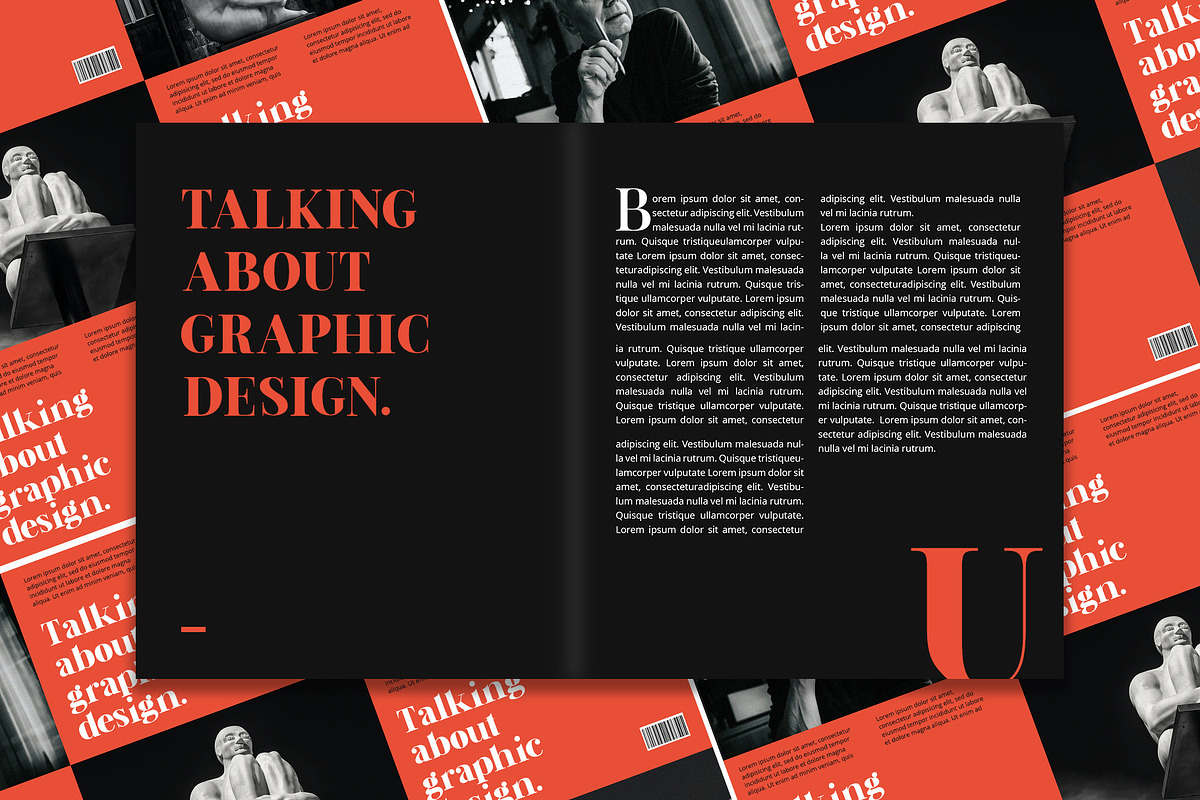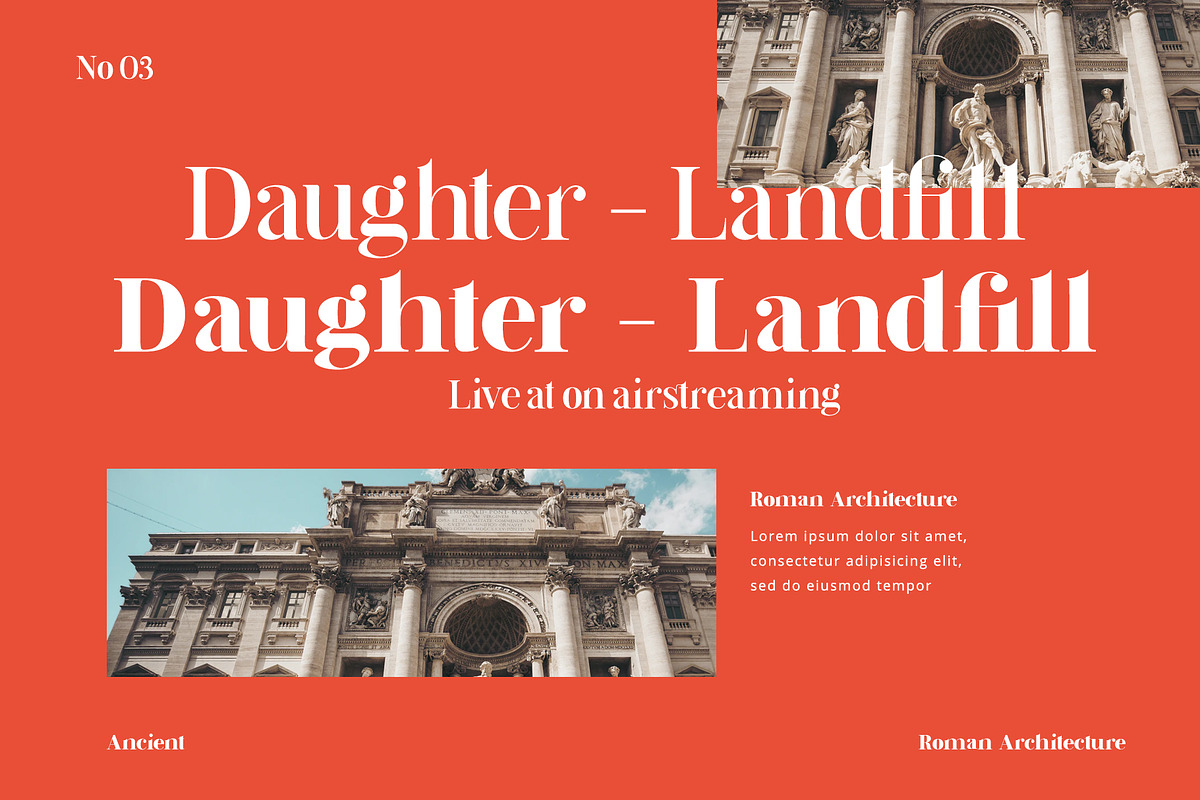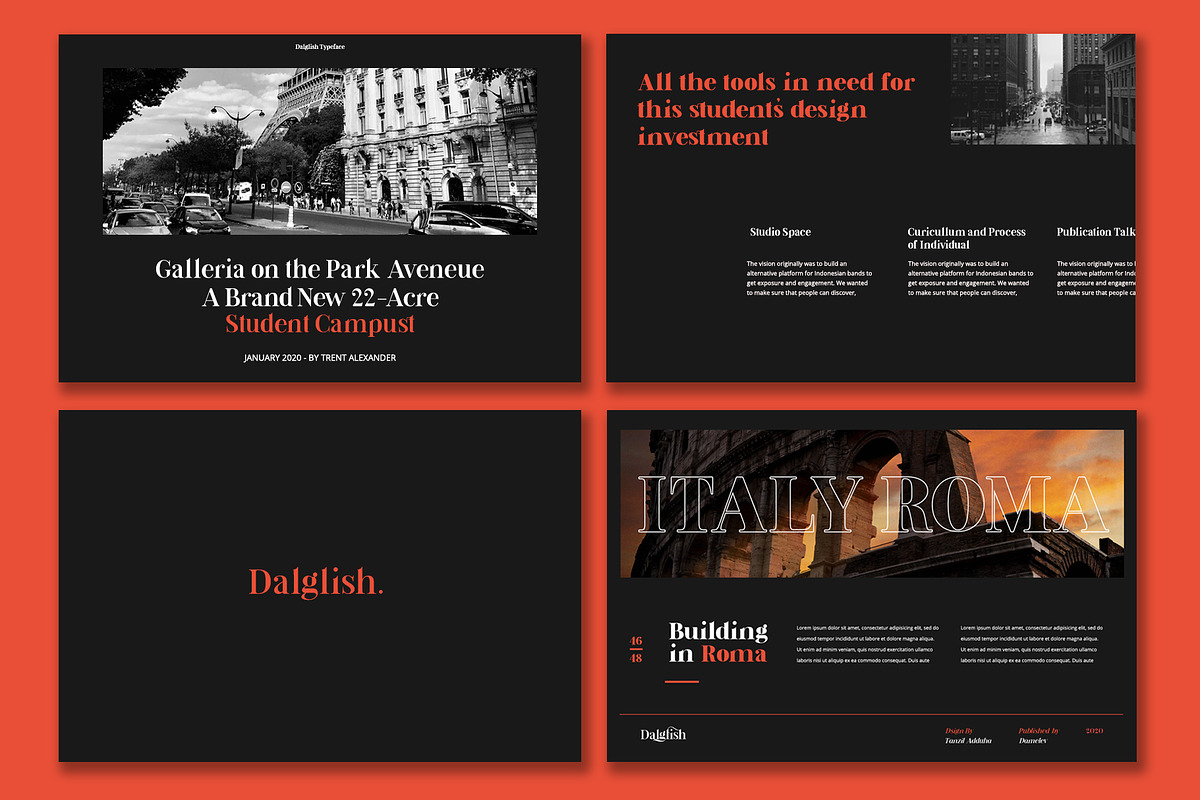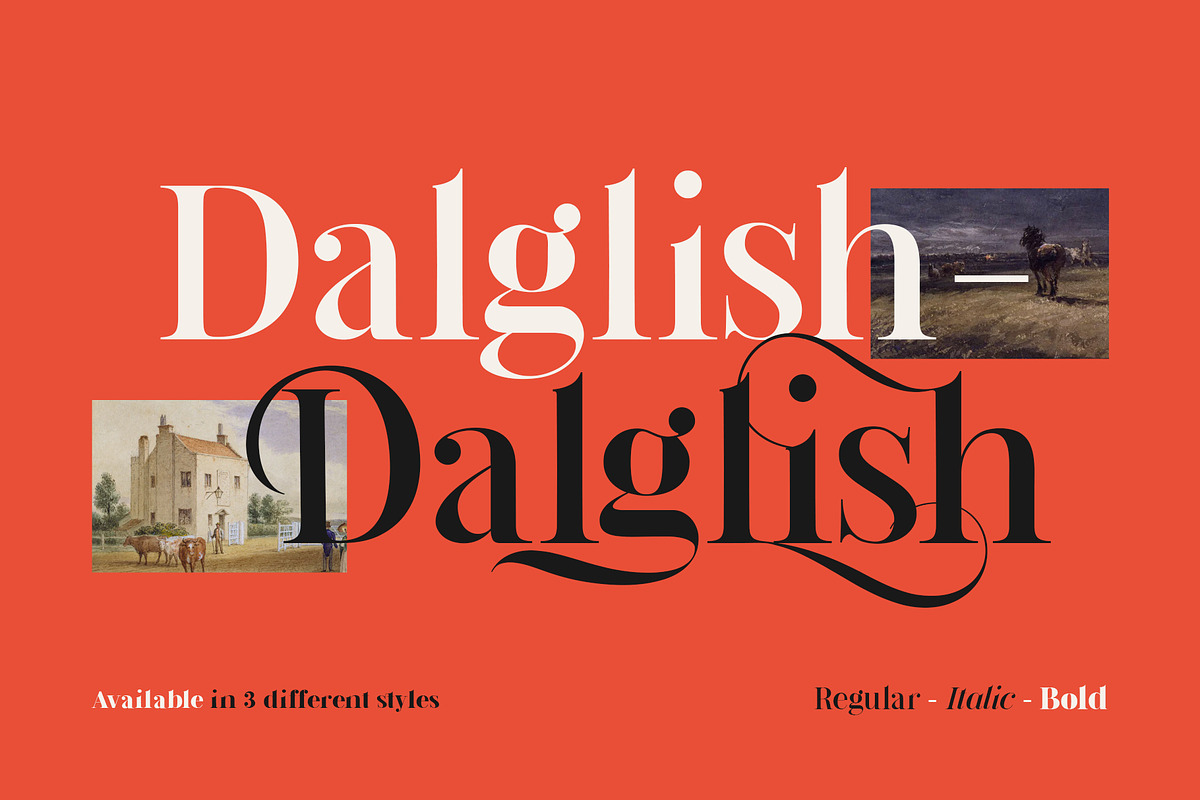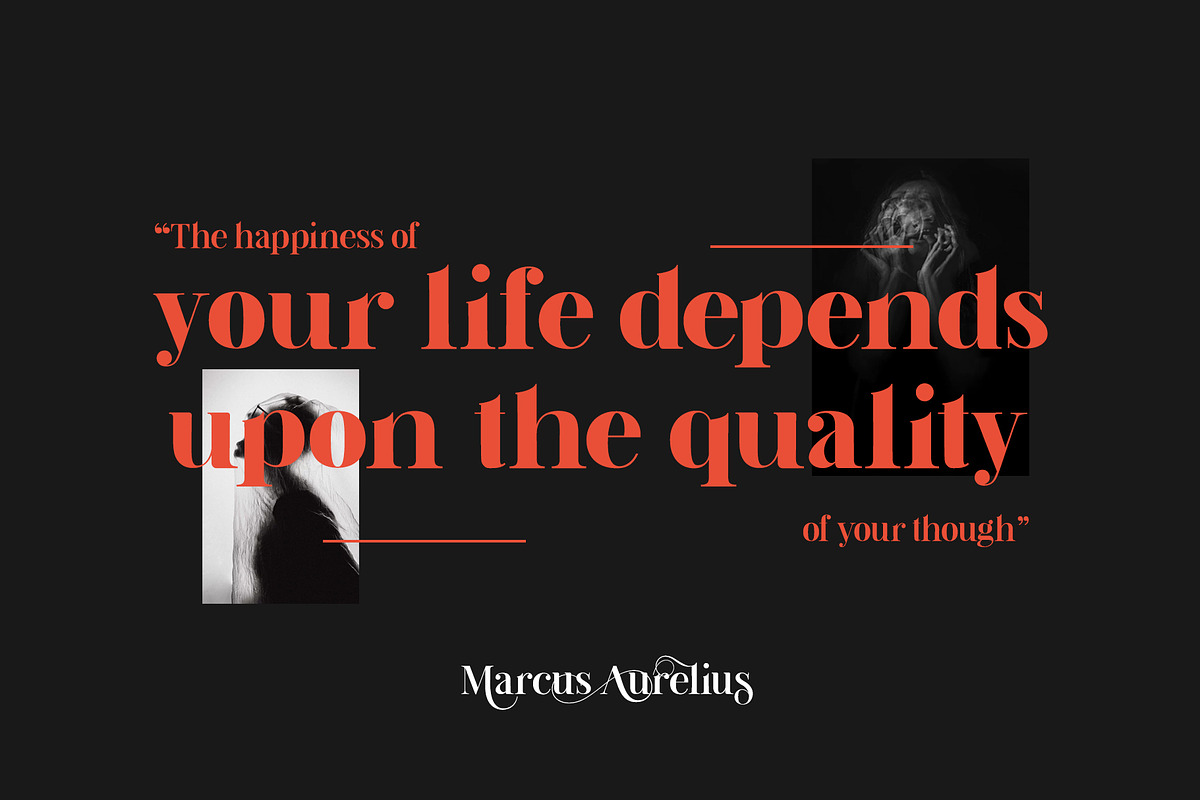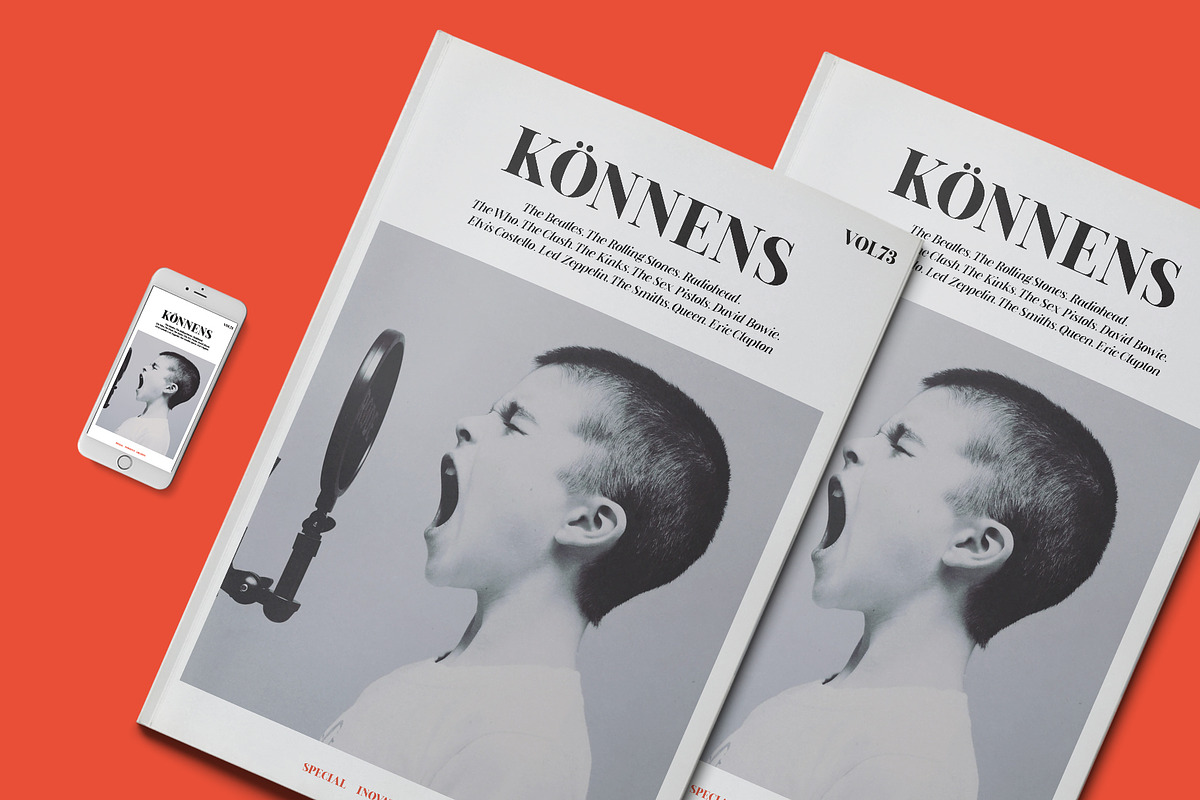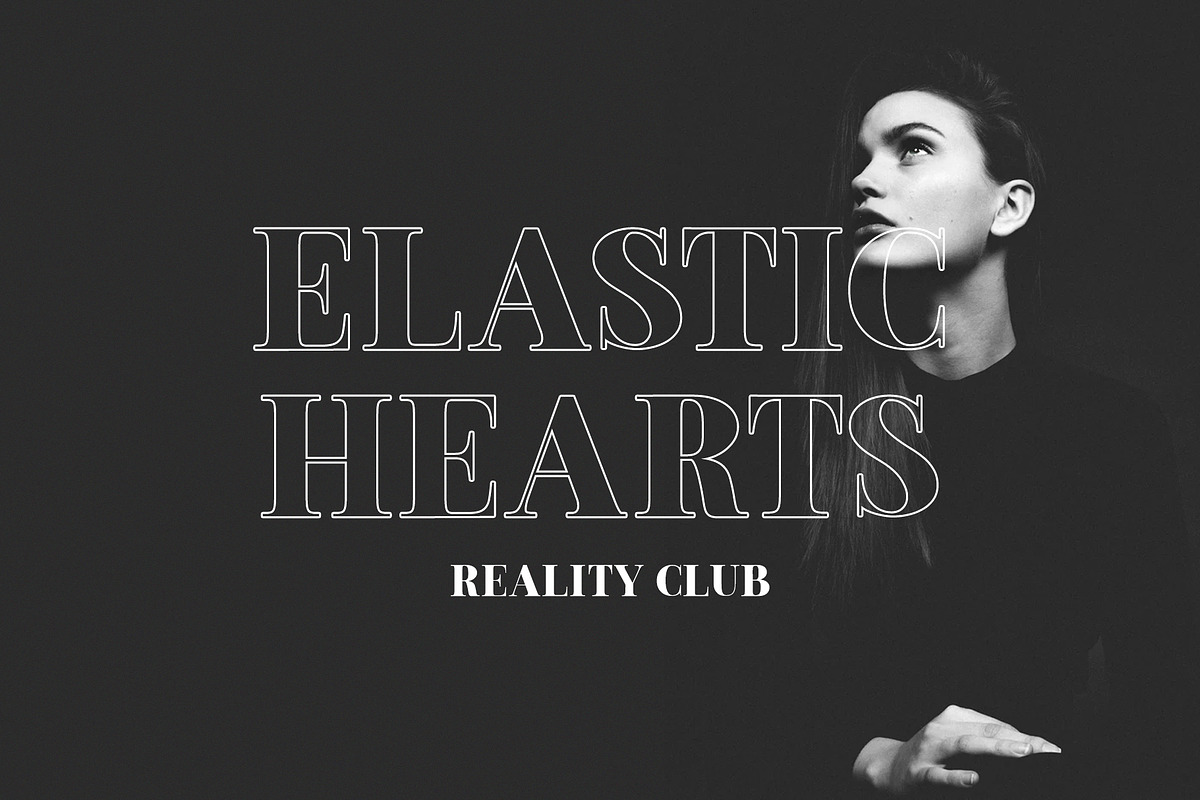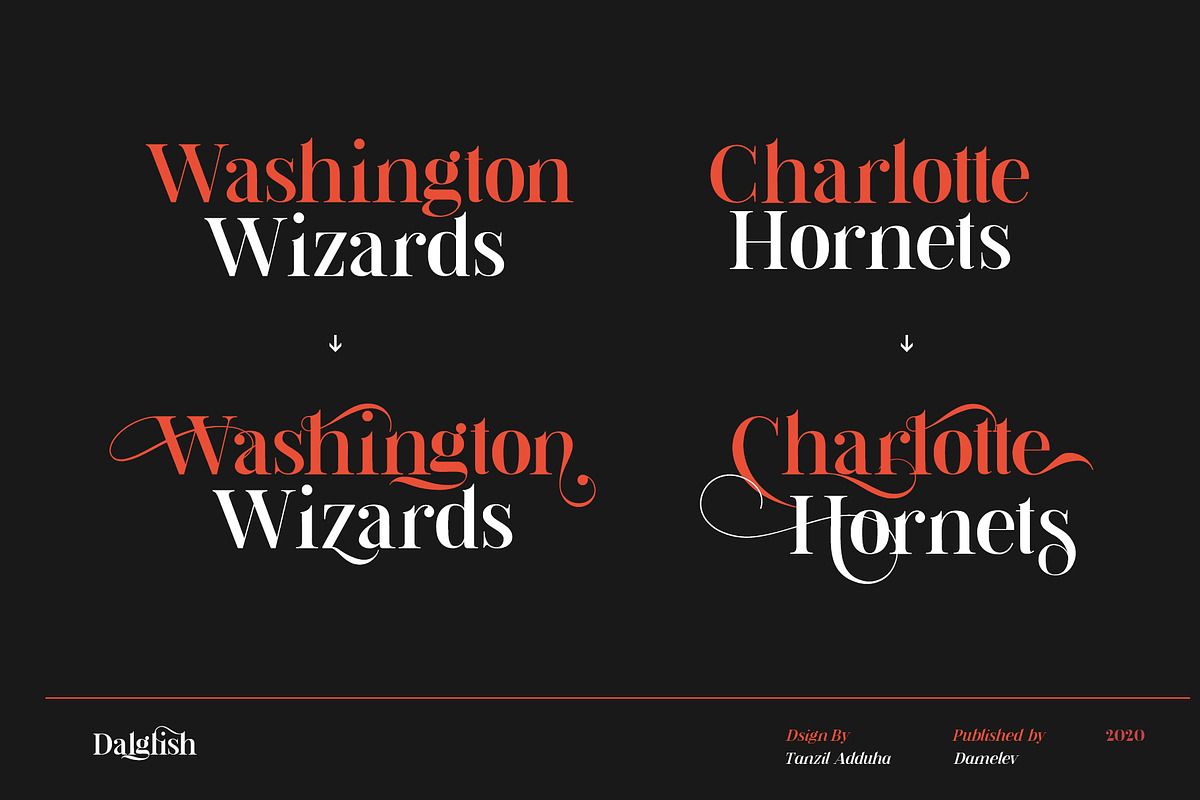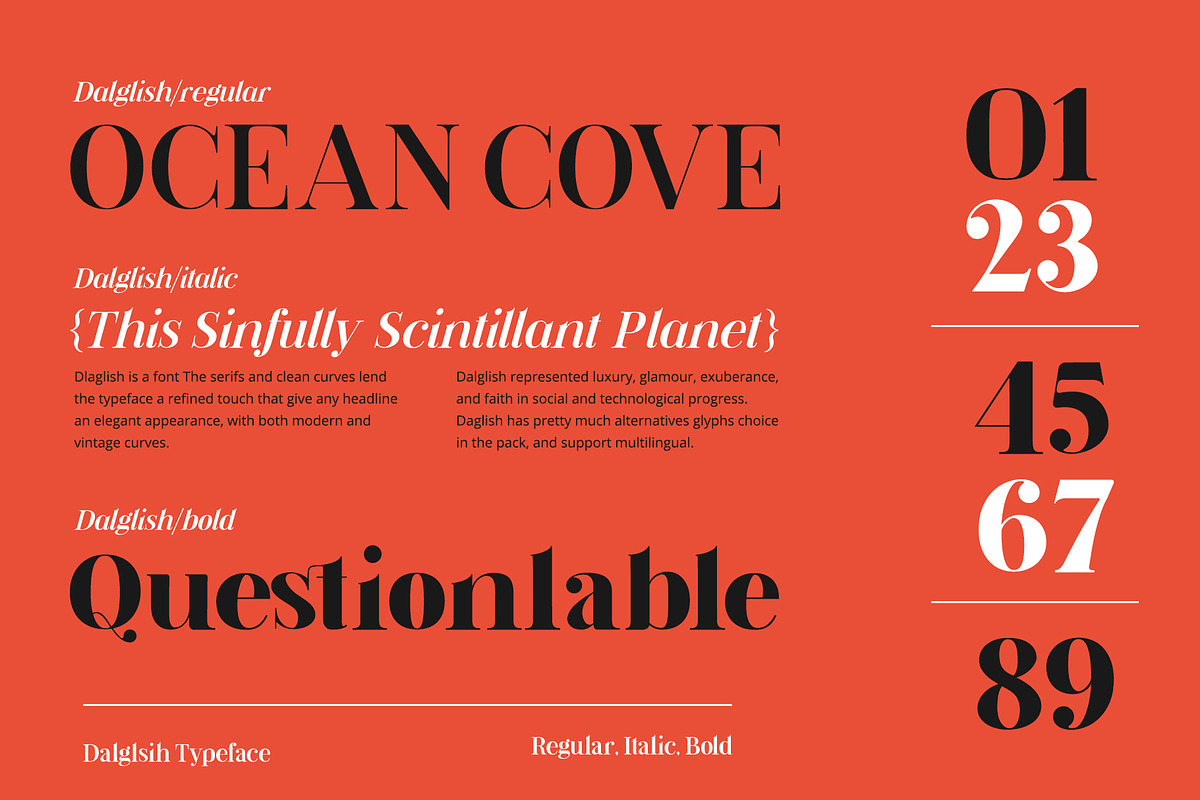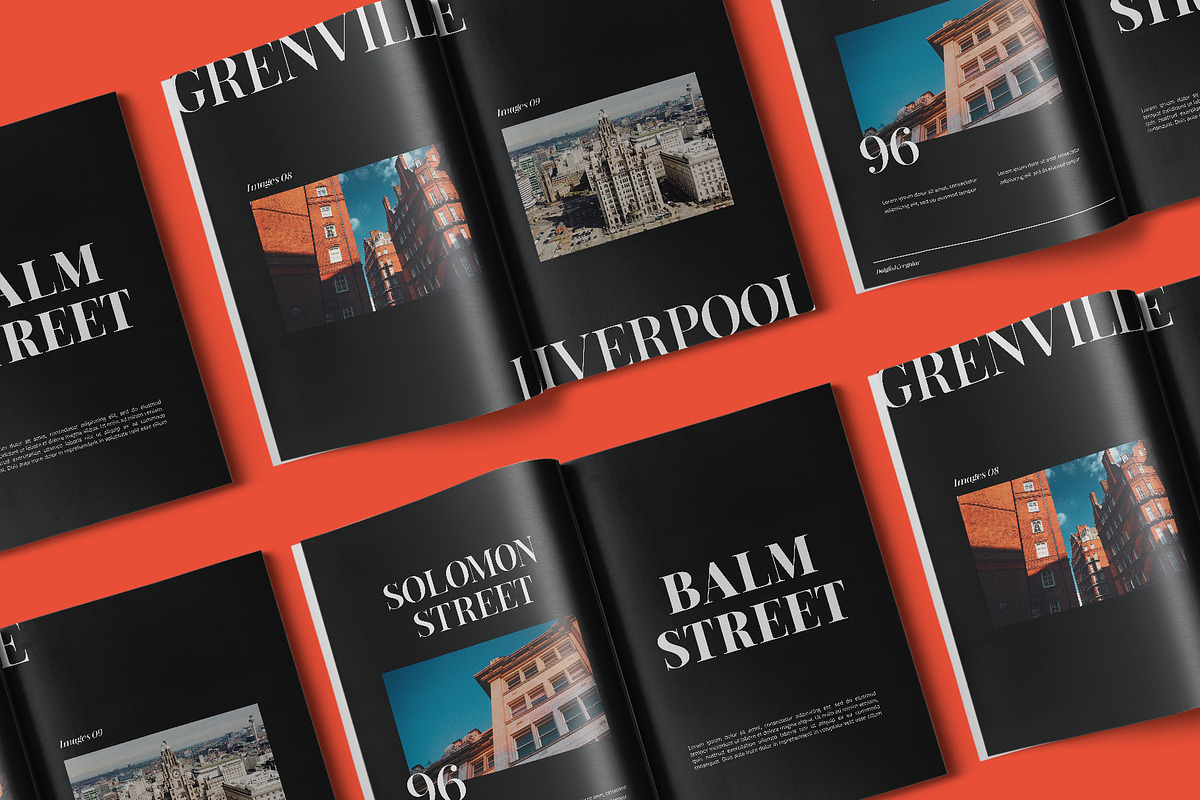
Dalglish Typeface
Dalglish Typeface is a font The serifs and clean curves lend the typeface a refined touch that give any headline an elegant appearance, with both modern and vintage curves. Dalglish Typeface represented luxury, glamour, exuberance, and faith in social and technological progress. Dalglish Typeface inspired by the art deco design style and poster design at France in the 19th Century. Dalglish Typeface has pretty much alternatives glyphs choice in the pack. Beside those alternatives, the pack also includes three different stylistic alternatives which are Regular, Italic, Bold and support multilingual.
It works perfectly for creative project such as logo, T-shirt / apparel, badge, invitation, packaging,headline, poster, magazine, greeting card, and wedding invitation. You can access the open type features and multilingual on mostly Adobe programs, such as Adobe Indesign, Adobe Illustrator, Adobe photoshop. etc.